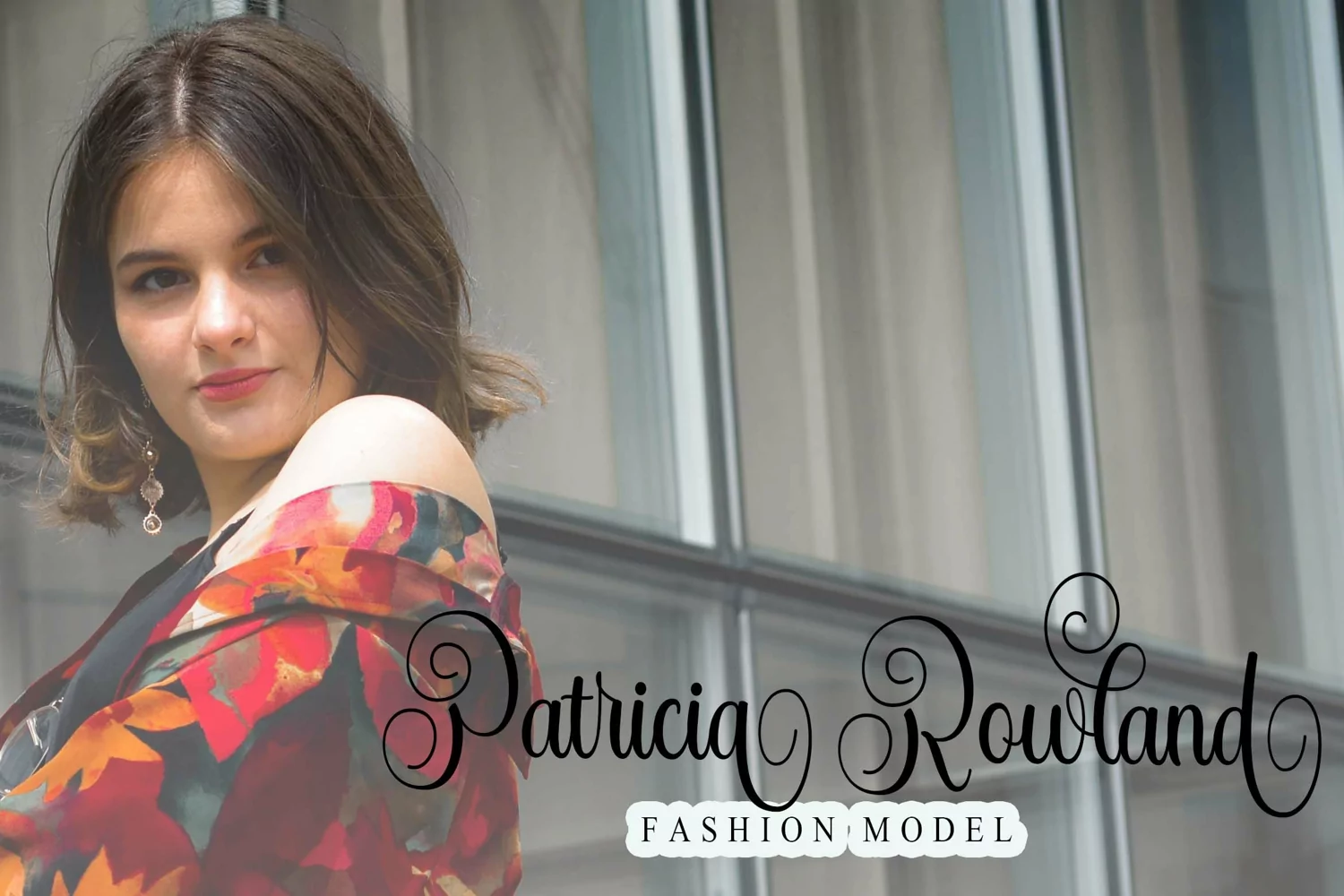
Star Bright is a romantic, elegant, and sweet calligraphy typeface with characters that dance along the baseline. It will add a luxury spark to any design project that you wish to create! This font is PUA encoded which means you can access all of the amazing glyphs and ligatures with ease!